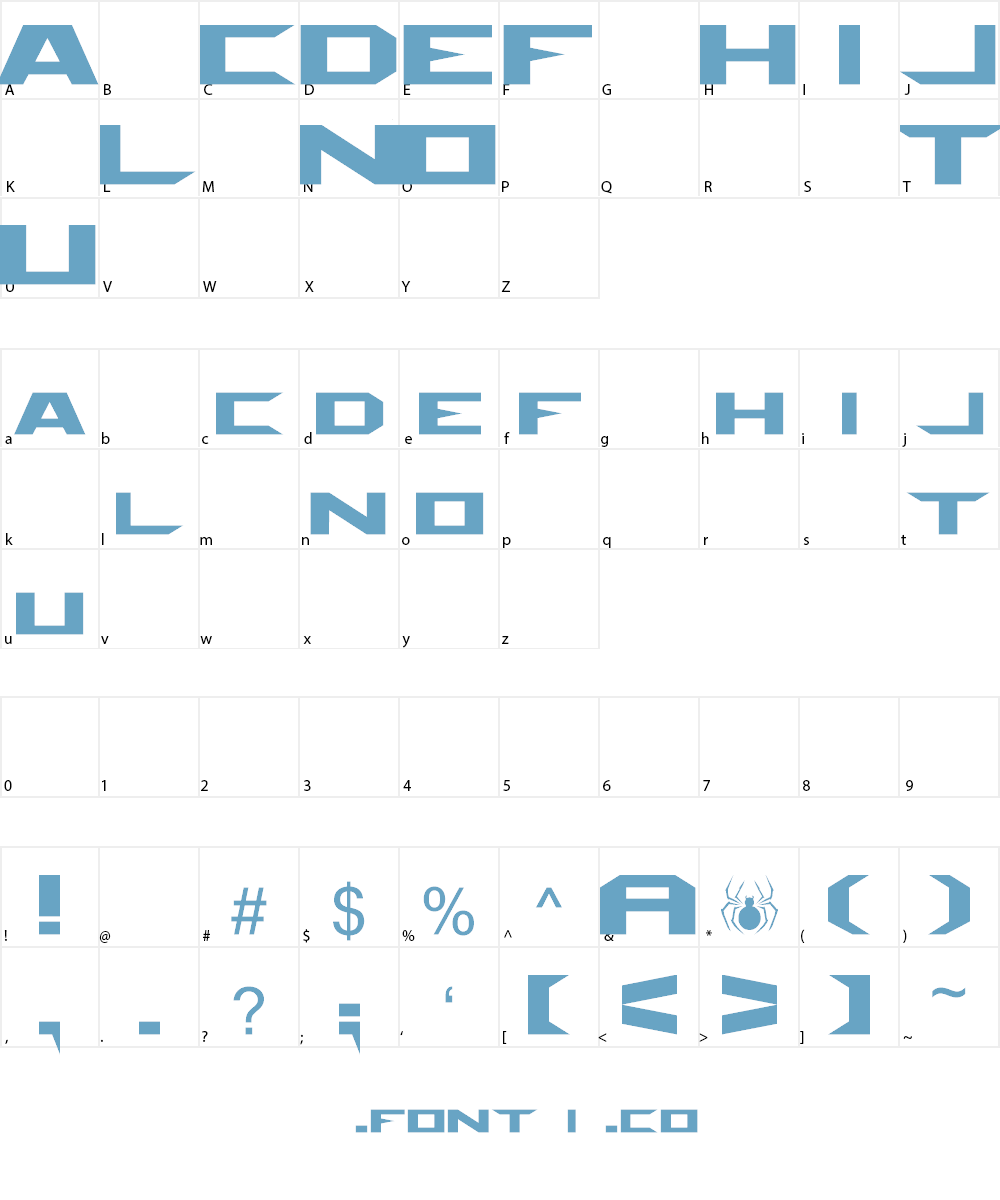
I created this typeface based on the time travelling film of a similar name.
This is a sample of 13 lowercase and capitals if you want the fully kerned OTF embeddable commercial version with numbers and accented glyph's please visit my Etsy Store @ https://etsy.me/2OwroXD